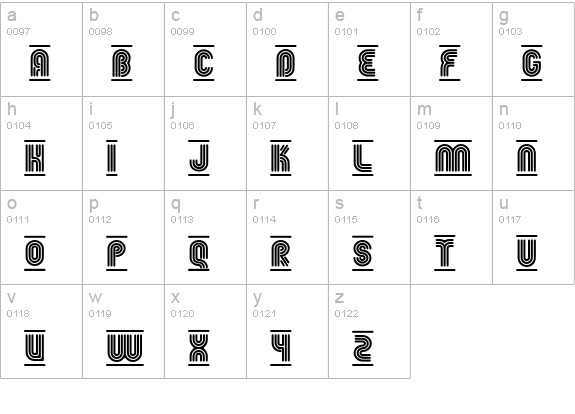
FgrooveSeventyEight Font Details
FgrooveSeventyEight is a stylish and modern display font that exudes a sense of energy and dynamism. With its bold and sleek design, this font is perfect for making a statement in your designs, whether for posters, logos, or branding materials. FgrooveSeventyEight strikes the perfect balance between sophistication and playfulness, making it a versatile choice for a wide range of projects. What's even better is that FgrooveSeventyEight is available for free download at FontsMarket.com. That's right, you can get your hands on this eye-catching font without having to spend a dime. So why wait? Add FgrooveSeventyEight to your font collection today and let your creativity shine!